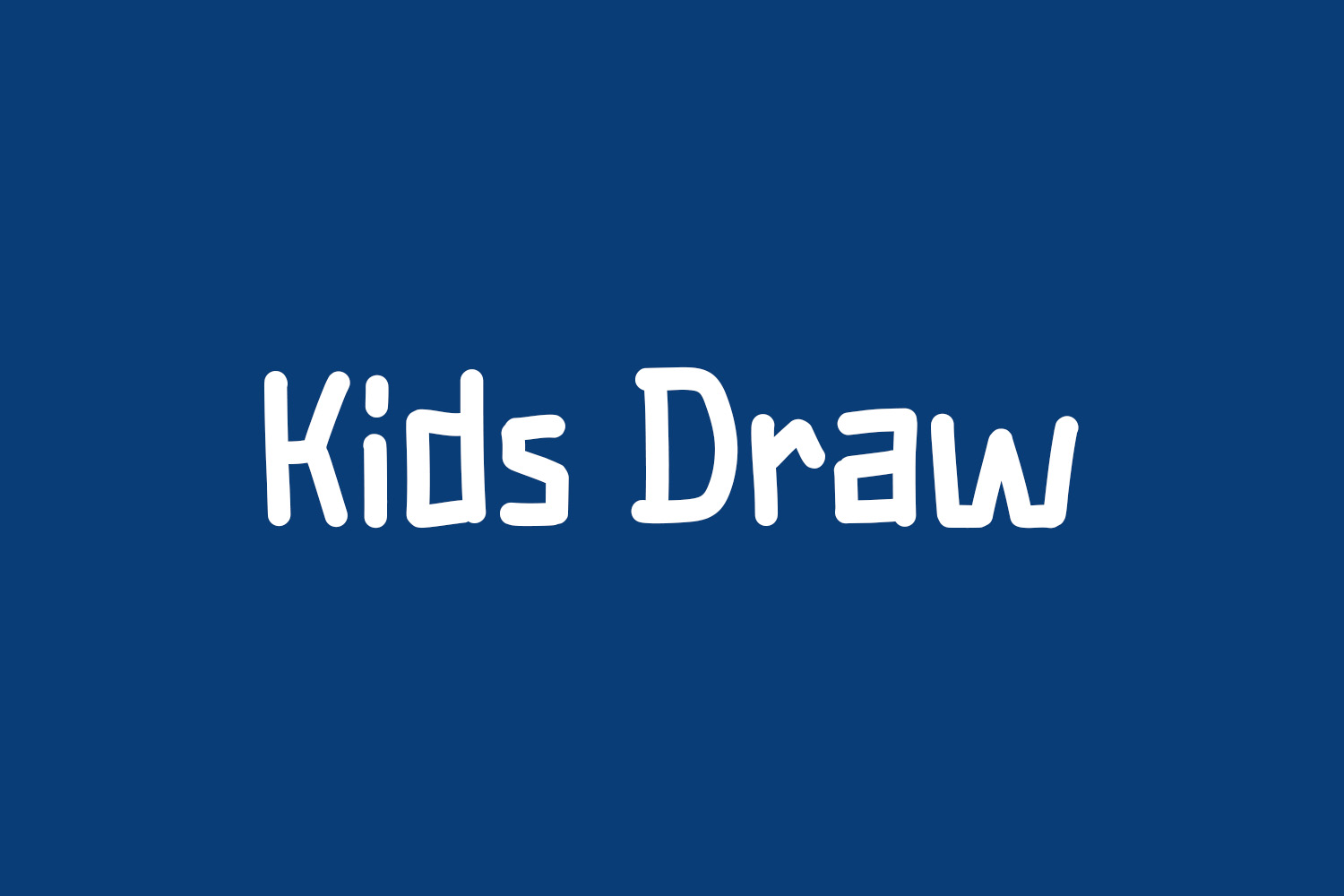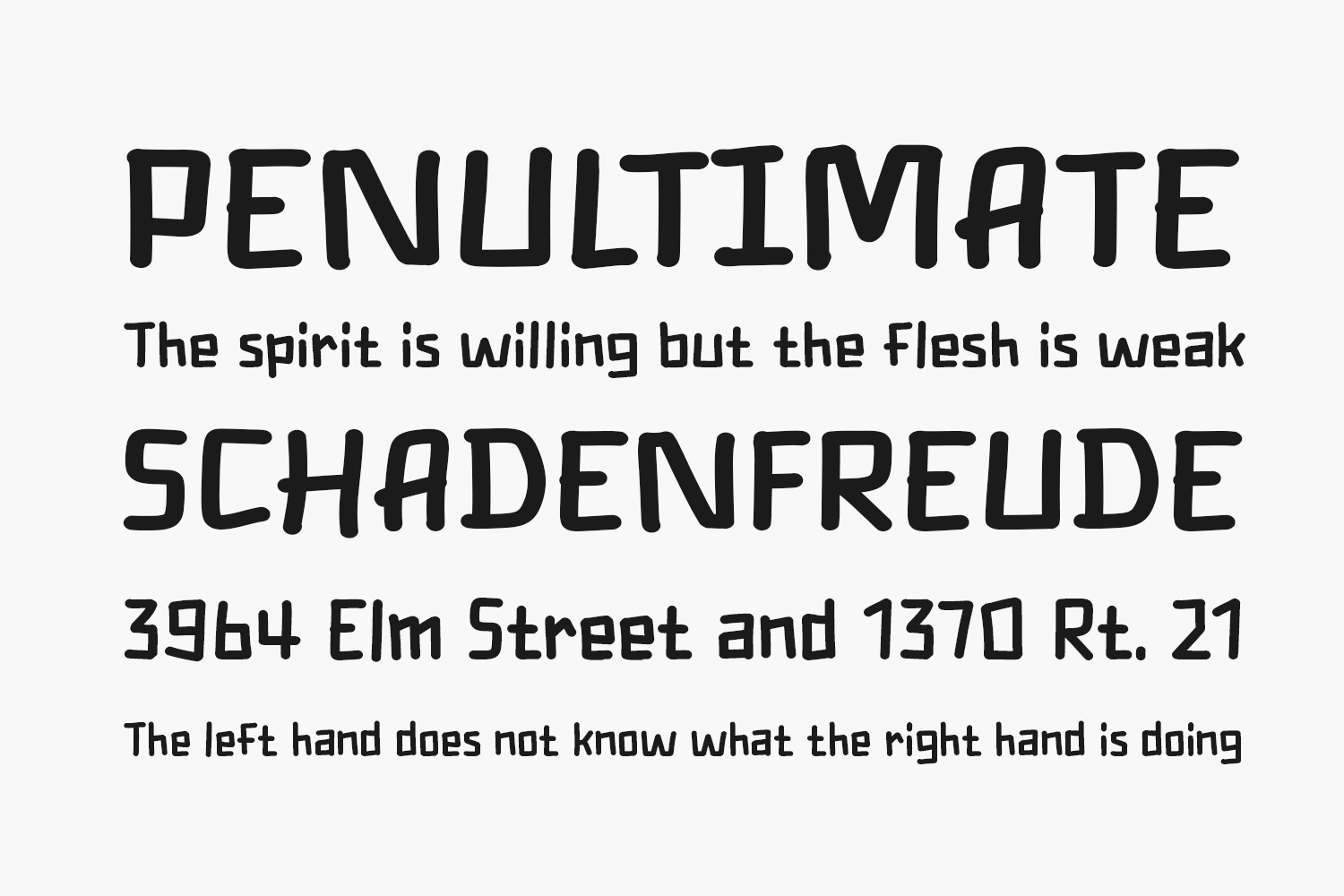
Discover Kids Draw Free Font, a contemporary and handwritten font tailored for a variety of design needs, including posters, logos, magazines, book covers, banners, and more! Unlock the potential of this remarkable font to craft beautiful designs that seamlessly complement a diverse range of projects. Elevate your creative concepts by incorporating Kids Draw and experience how it effortlessly makes them stand out. Kids Draw Free Font is free for personal use only. Please purchase the full version for commercial use.